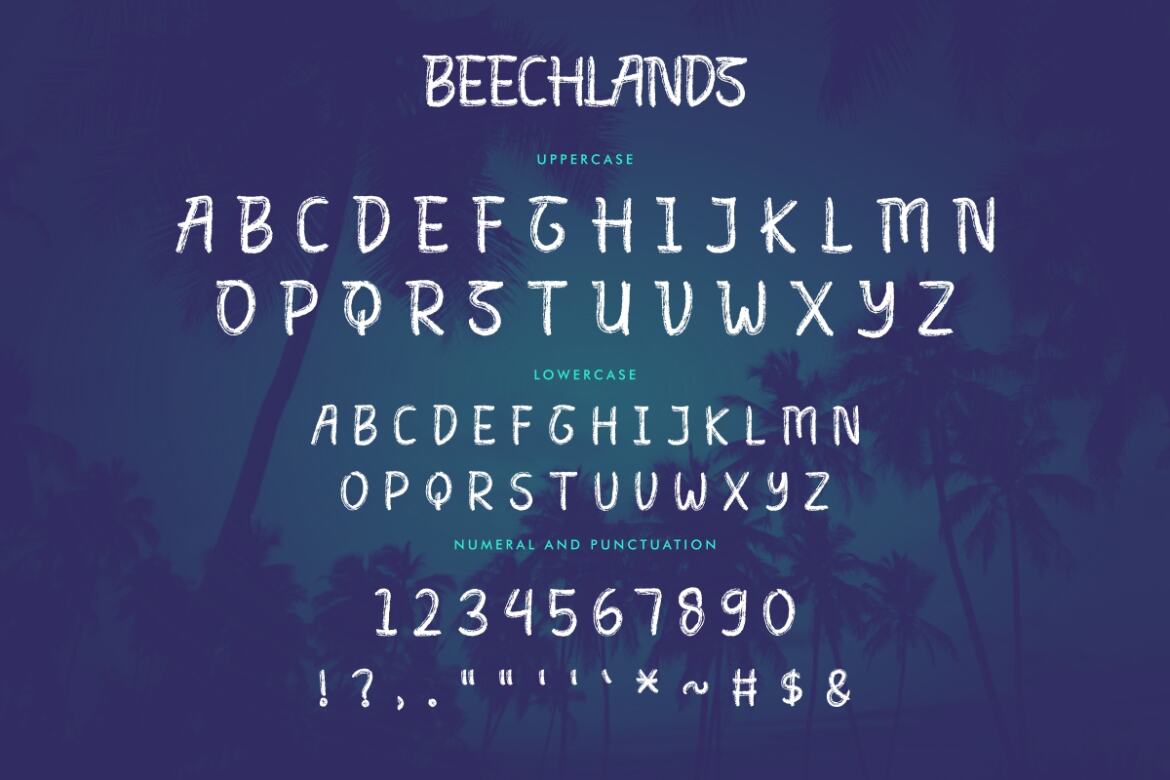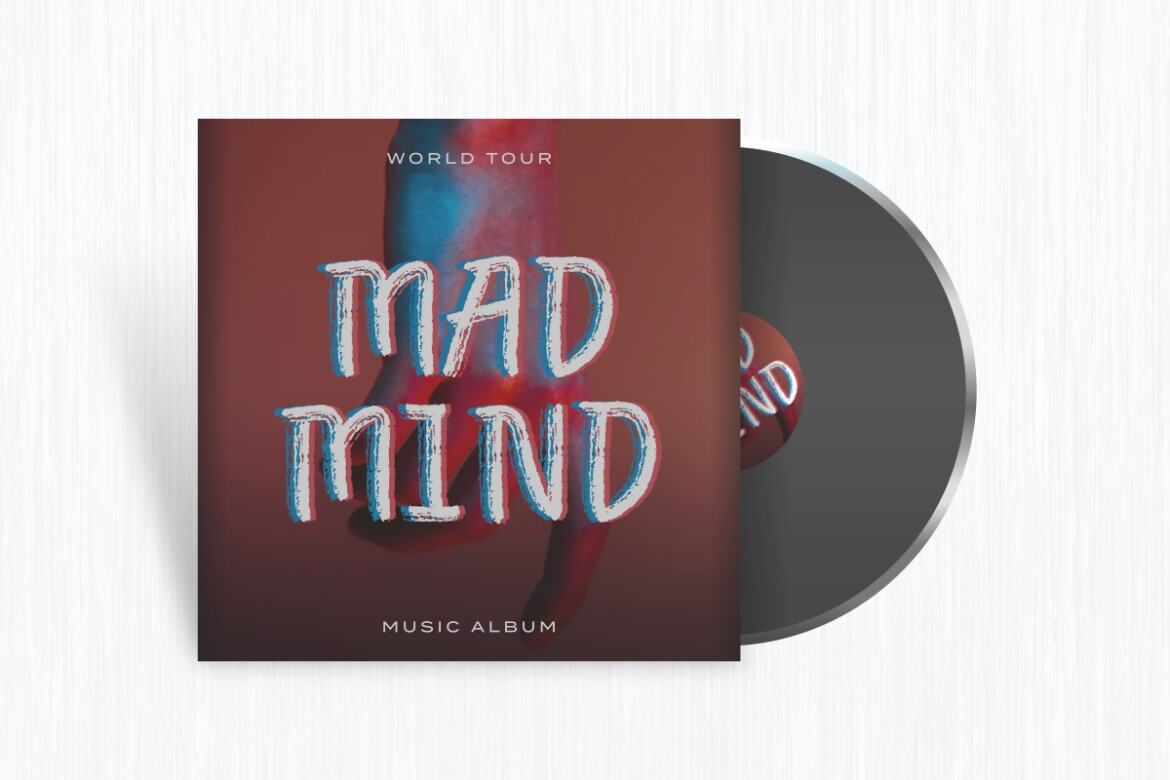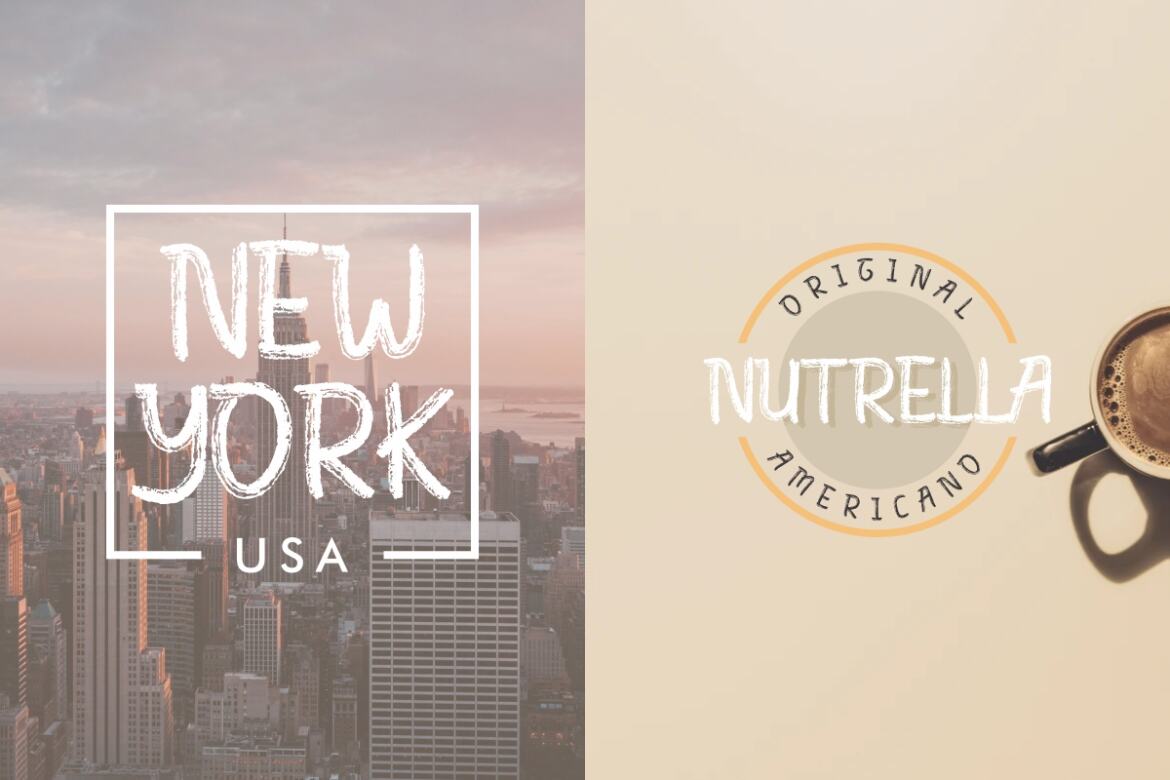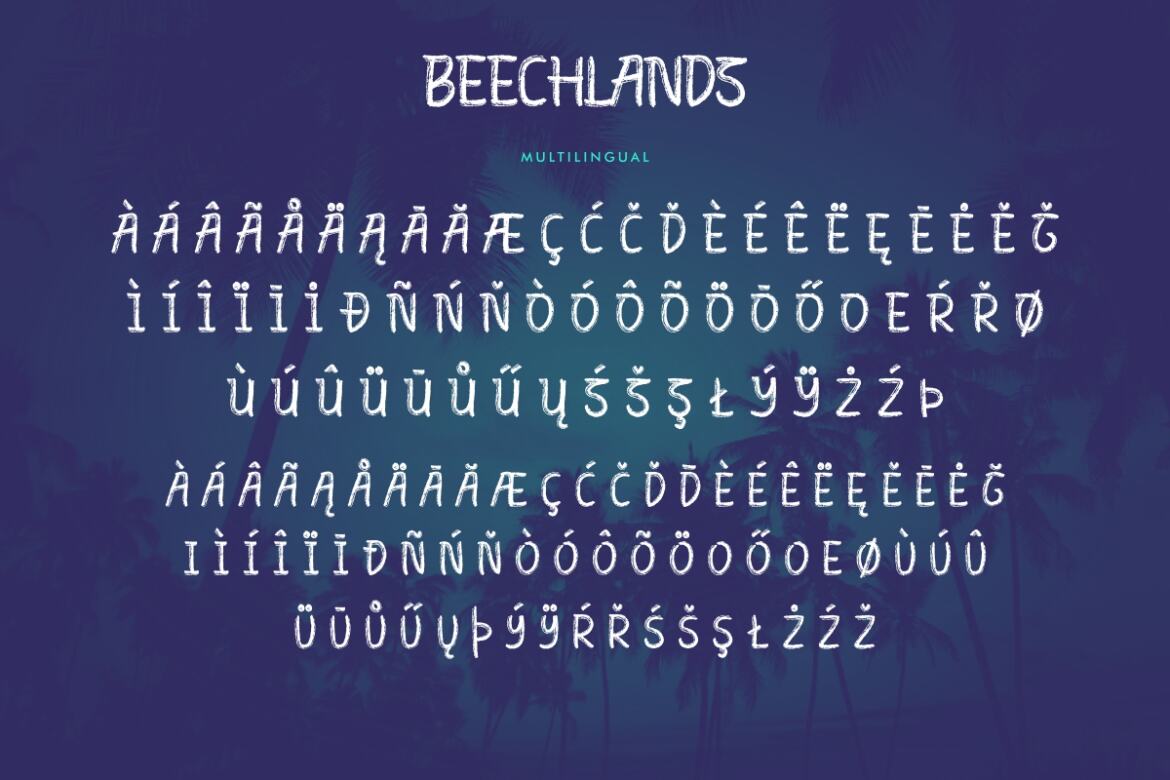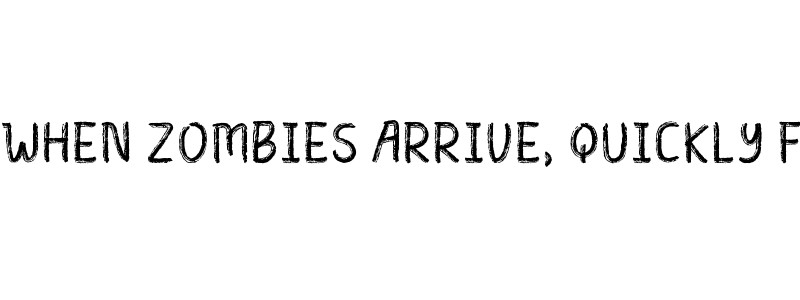
Beechlands - Free Font
Beechlands
Beechlands Font is a rough brush display font with dry textured effect. This font has a stunning characters set, perfectly managed with well spaced and kerning. The theme style of this font will horror, movie, games, vintage and classic brush style. This is a winter themed brush display font, handcrafted specially for you to standout the competitor. Beechlands Font will be great for any projects including : brandings, signage, flyer, brochure etc. Many industries and categories will be suitable for this font : events, products, movies, cartoon, festival, magician etc Here’s what you’ll get on the zip pack :